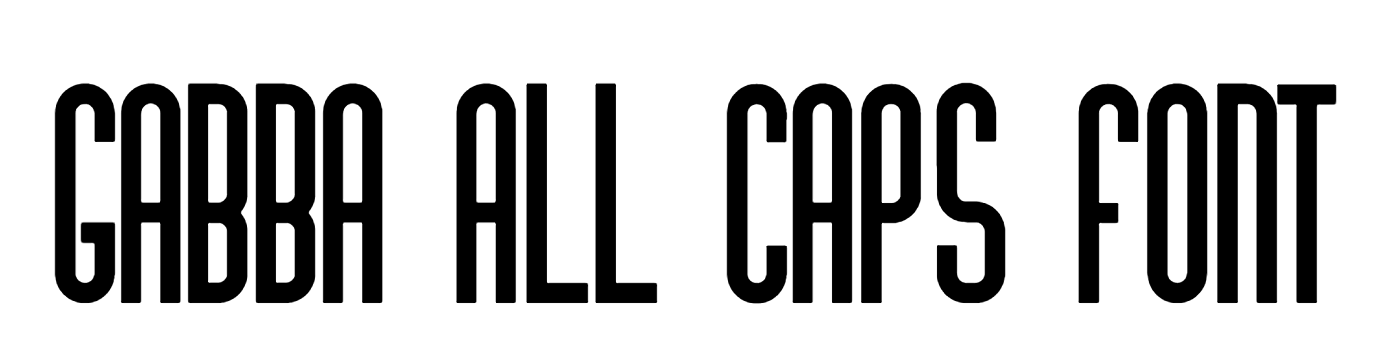
Gabba All Caps
Gabba All Caps is a sans serif font. Simple, open letter shapes keep it easy to read at almost any size, from app buttons to big headlines. You can download it for free and test it with your own words in the preview above.
What You Can Type With Gabba All Caps
With complete upper and lowercase letters and all ten digits, Gabba All Caps is ready for real wording, not just a single headline. Everyday marks like ! and ? are there too. There are no accented letters like é or ñ, so it's best kept to English text.
Where Gabba All Caps Works Best
Think of Gabba All Caps for websites, app screens and clean logos. The file has no kerning data, so in logos and big titles check pairs like AV, To and Wa and tighten the spacing by hand. It works for headings and body text alike. If the download has several weights, use a heavier one for titles and a lighter one for paragraphs.
Does Gabba All Caps support accented letters?
No. Gabba All Caps has no accented letters such as é, ñ or ü, so it's best for English text.